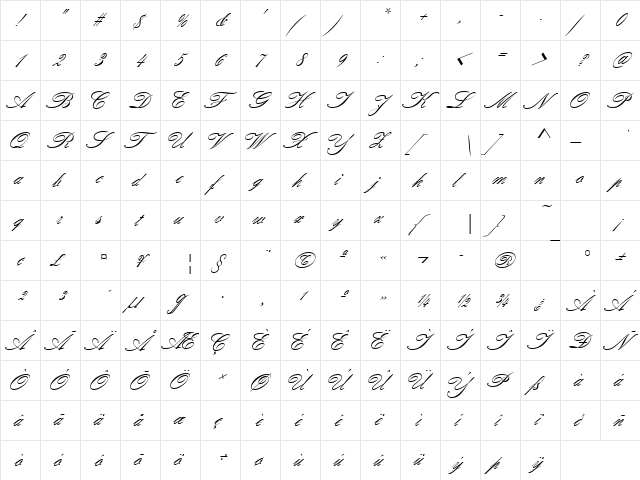
URWAtalantaDReg Regular
Design Context for URWAtalantaDReg Typeface
URWAtalantaDReg takes a measured approach to typography — its balanced proportions and neutral character make it a reliable workhorse for both digital and print work.